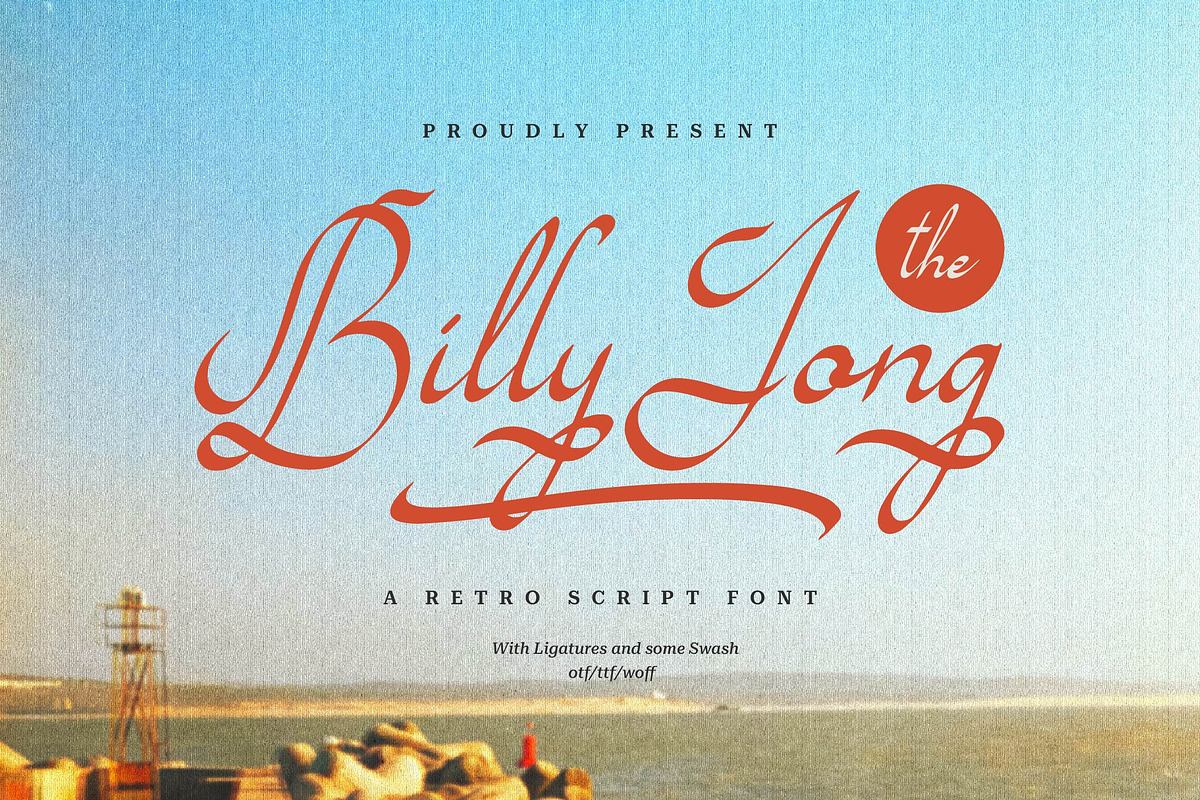
Billy Jong | Retro Script Font Free Download
Billy Jong | Retro Script Font Free Download is a bold and stylish typeface that channels the vibrant energy of vintage signage and mid-century design. With smooth curves, exaggerated swashes, and a hand-painted feel, Billy Jong is perfect for logos, posters, t-shirt designs, branding, and packaging that aim to capture a nostalgic, retro flair.
This font brings back the charm of classic Americana with a modern twist, making it ideal for creatives who want their work to pop with personality. Its script style flows naturally, giving your text a dynamic, handcrafted appearance that stands out in both print and digital media.